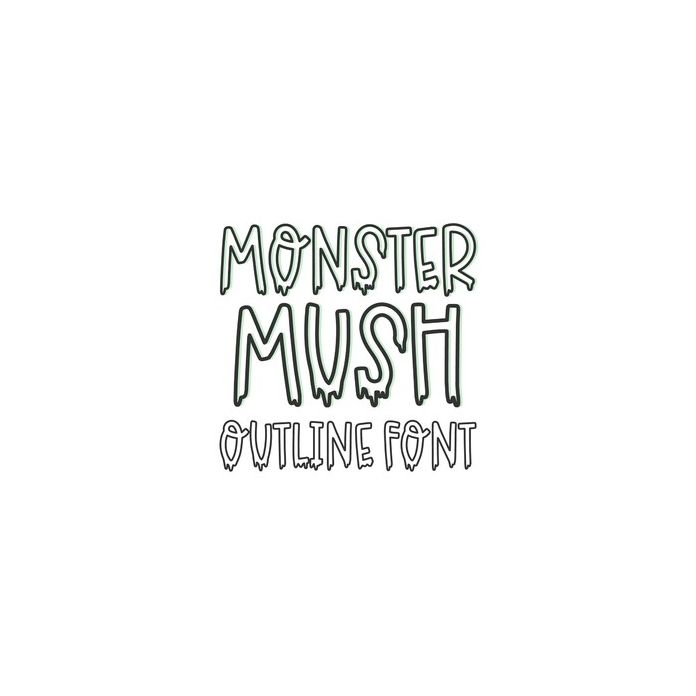
BFC Monster Mush Drip Halloween Outline Font
Monster Mush Outline Version is a drippy and spooky Halloween font. Find our matching solid font "Monster Mush".